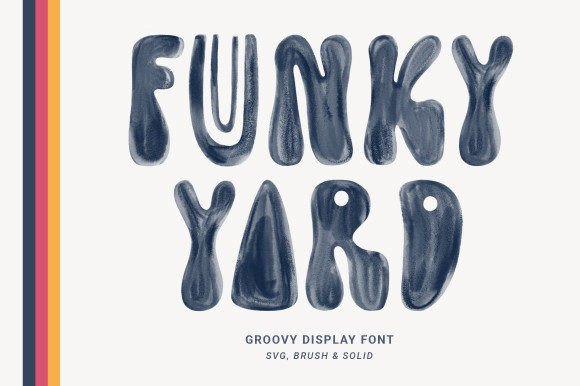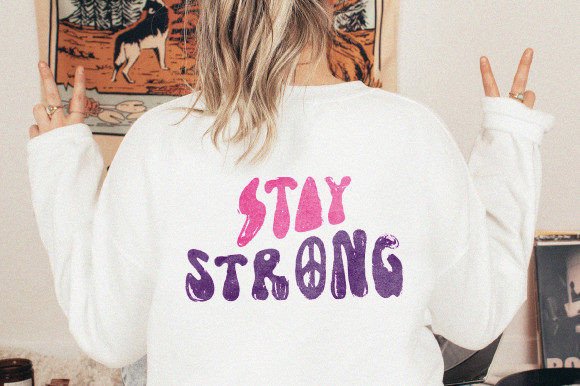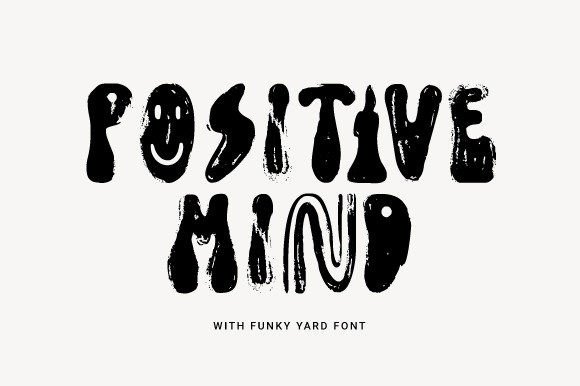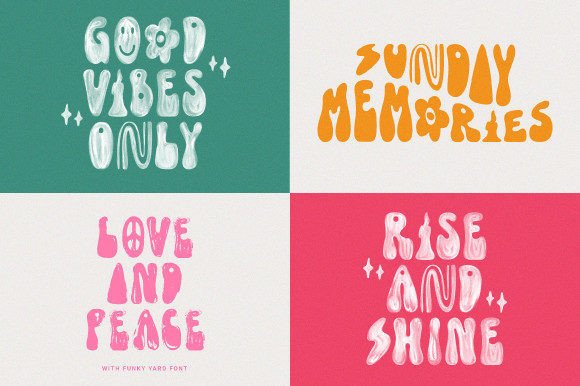
Funky Yard Font
About the Funky Yard Font
We are excited to introduce Funky Yard Font, a must-have typeface for any serious designer. Funky Yard is a fun, groovy display font. Its whimsical and quirky style is perfect for creating unique retro designs with a modern twist.
Funky Yard thrives in display contexts such as headlines, posters, and short-form branding elements where its playful energy can shine. It’s ideal for projects aiming for a retro-modern aesthetic, particularly those targeting younger demographics or brands with a fun, quirky personality. Avoid using it for body text or UI elements; its unique letterforms are not optimized for readability in extended passages.
Pairings that complement Funky Yard include clean sans-serif fonts like Futura or Helvetica for a balanced contrast, or a more geometric sans-serif for a modern edge. A classic serif like Garamond could add a touch of sophistication to offset the font’s playful nature, while a simple script font could enhance a vintage feel for certain applications.
Funky Yard’s overall personality is bold and playful, yet retains a level of sophistication. Its retro style offers a unique twist, making it well-suited for brands and projects that value a distinctive, attention-grabbing aesthetic.